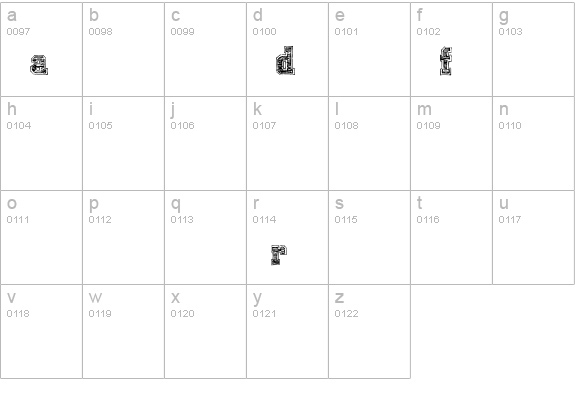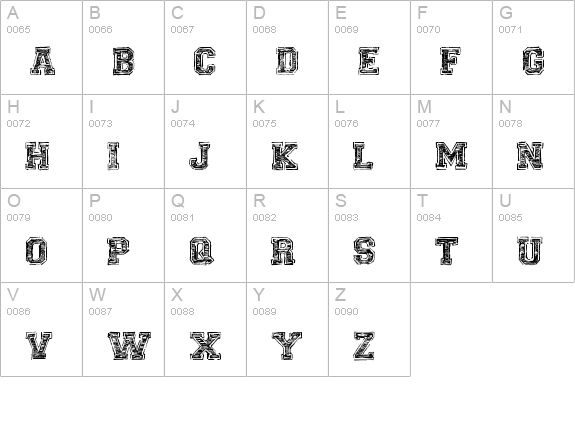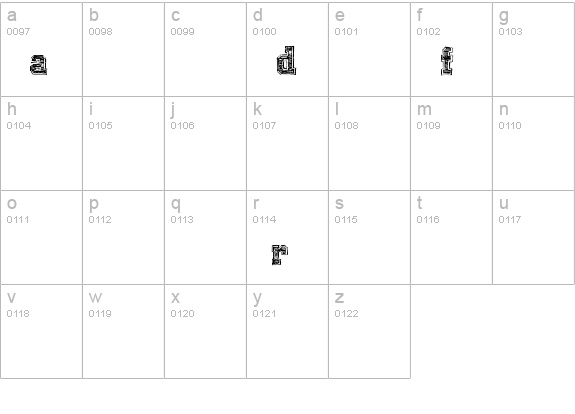
UNIVERSAL-COLLEGE-draft Font Details
Introducing UNIVERSAL-COLLEGE-draft font, a versatile and eye-catching typeface that captures the essence of collegiate spirit. Whether you're designing a sports team logo, creating educational materials, or simply looking to add a touch of nostalgia to your projects, this font is the perfect choice. With its bold and dynamic letterforms, UNIVERSAL-COLLEGE-draft font exudes confidence and captures the energy of the college experience. Each character is carefully crafted to evoke a sense of tradition and unity, making it an excellent choice for representing educational institutions, athletic events, or any design that aims to inspire and motivate. What sets UNIVERSAL-COLLEGE-draft font apart is that it is freely available to download at FontsMarket.com. This means that you can add this incredible font to your collection without any cost, making it an excellent resource for designers, students, and anyone looking to enhance their creative projects. Not only does UNIVERSAL-COLLEGE-draft font offer aesthetic appeal, but it also provides excellent legibility, ensuring that your message is conveyed clearly and effectively. Its clean and well-defined letterforms make it suitable for a wide range of applications, from headlines and titles to body text and captions. Whether you're working on a poster, website, branding project, or any other design endeavor, UNIVERSAL-COLLEGE-draft font is here to elevate your work to new heights. Its timeless appeal and versatile nature make it a must-have addition to any designer's toolkit. So don't miss out on the opportunity to enhance your designs with this remarkable font. Head over to FontsMarket.com and download UNIVERSAL-COLLEGE-draft font for free today. Give your projects that extra touch of collegiate charm and watch them come to life with this exceptional typeface.